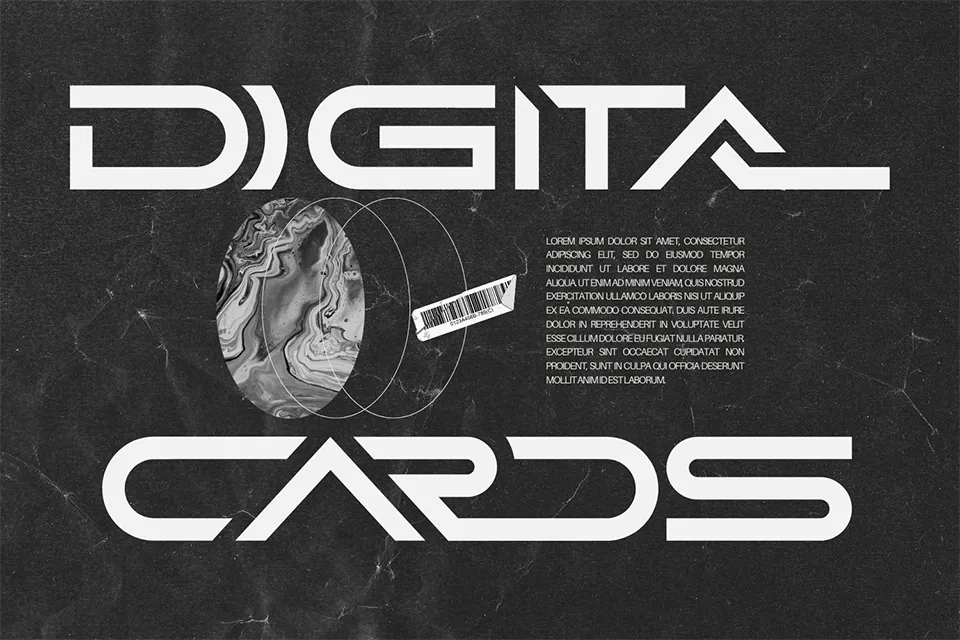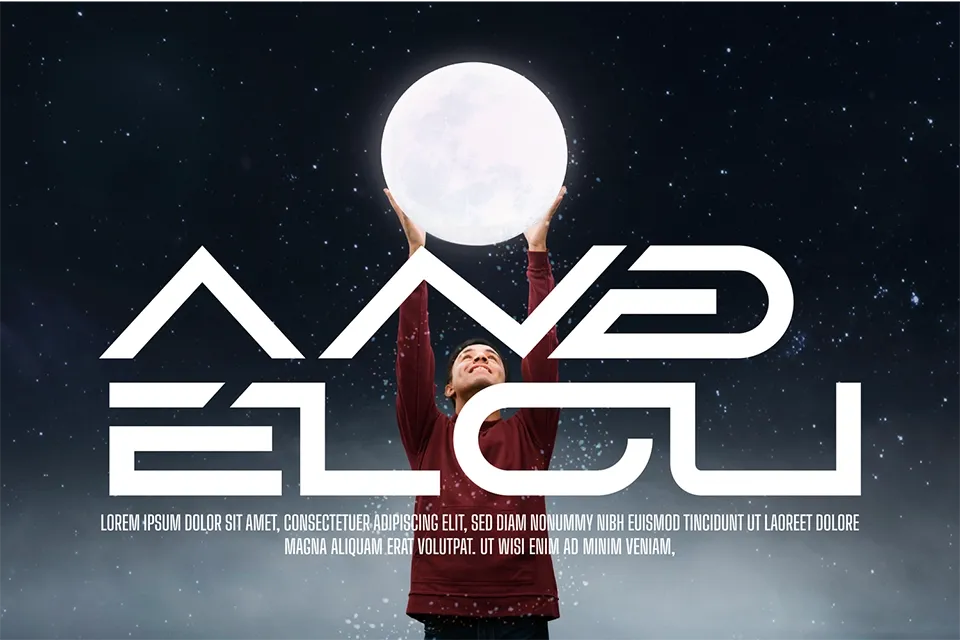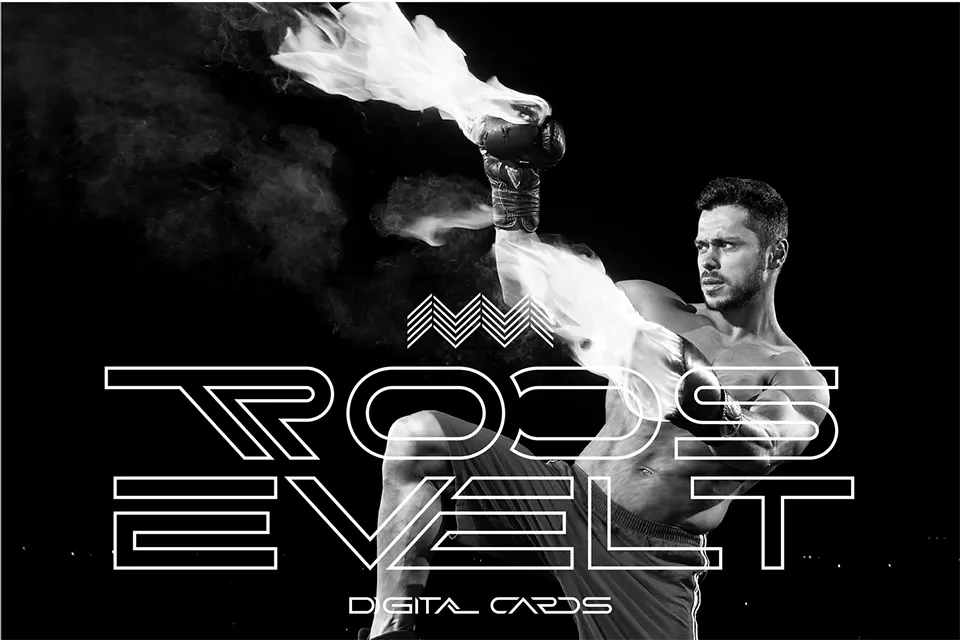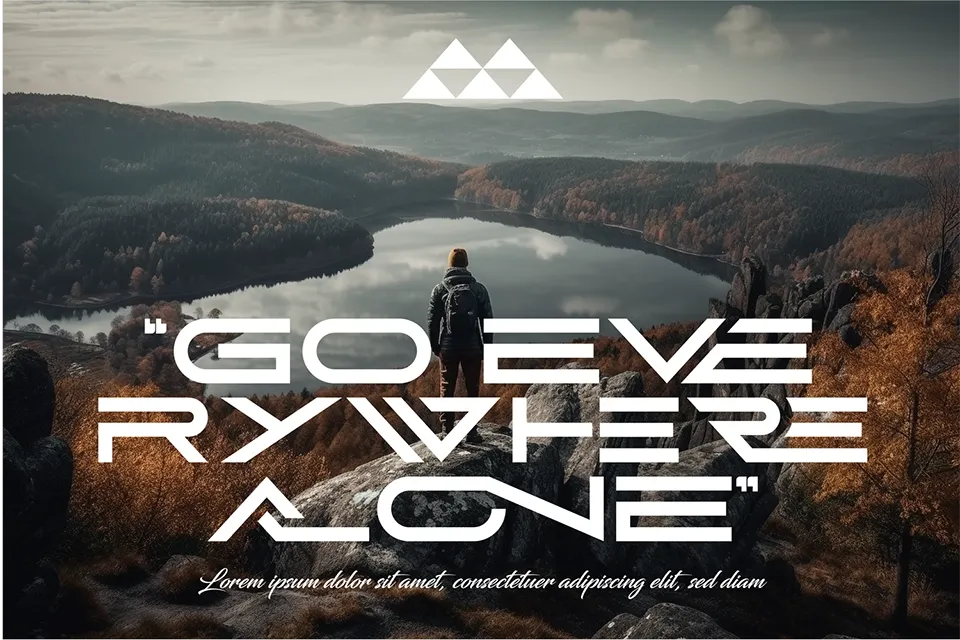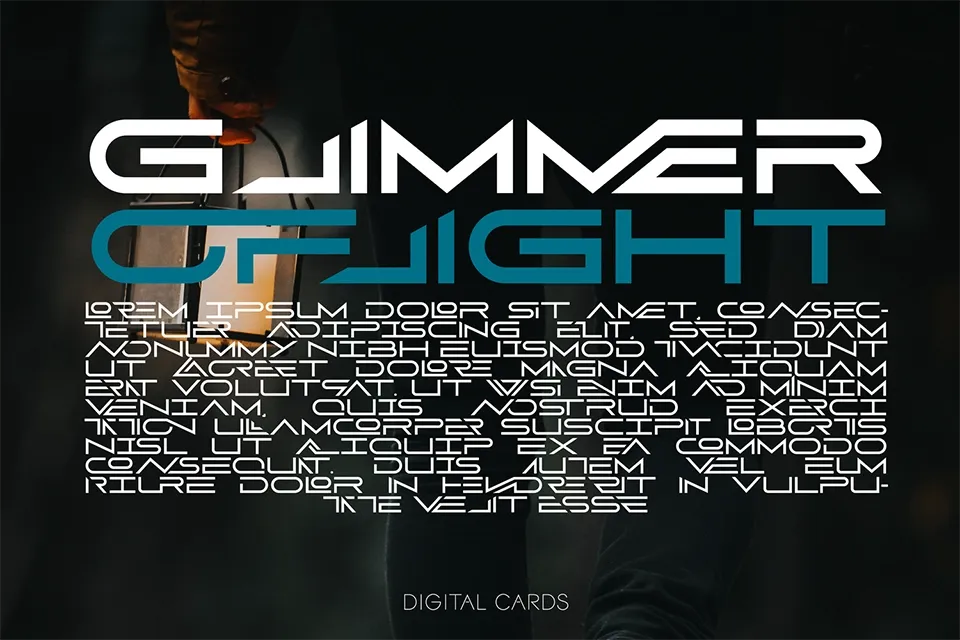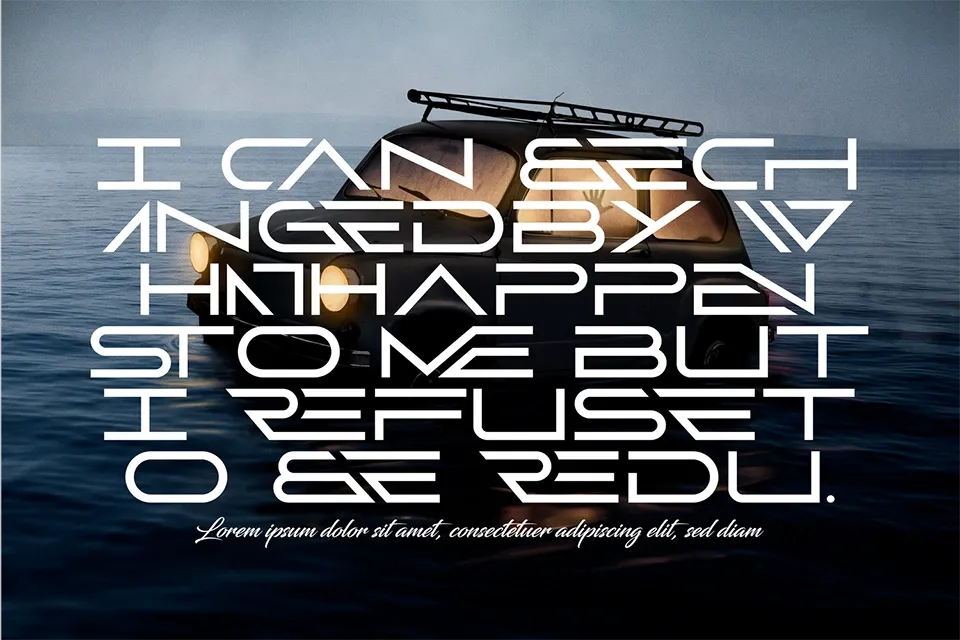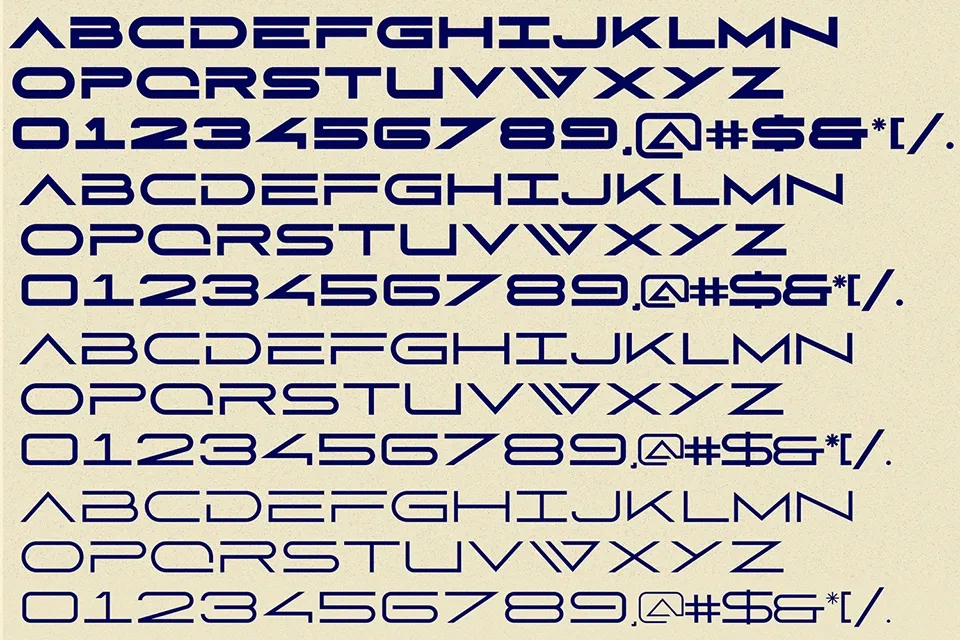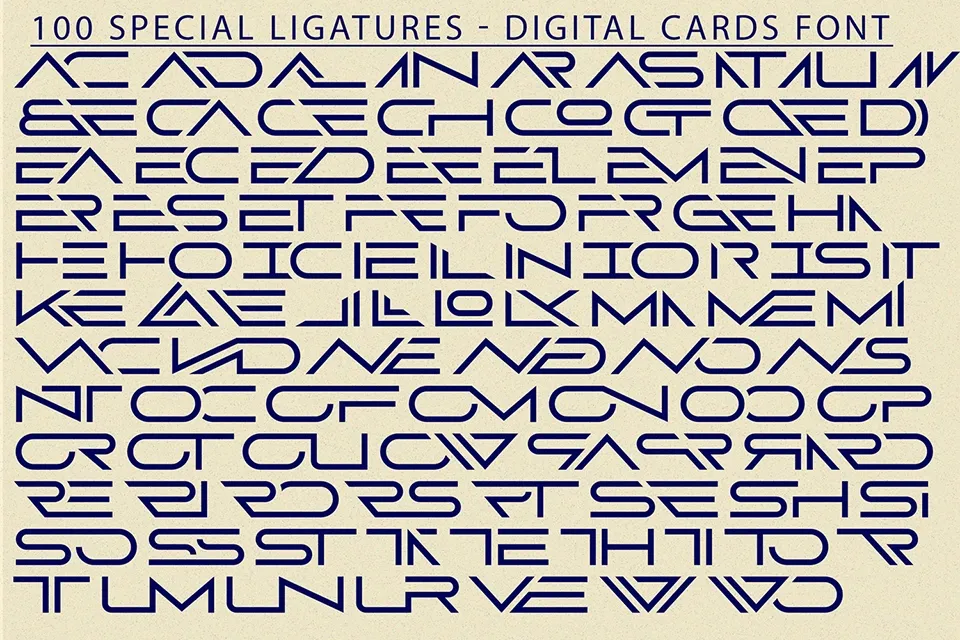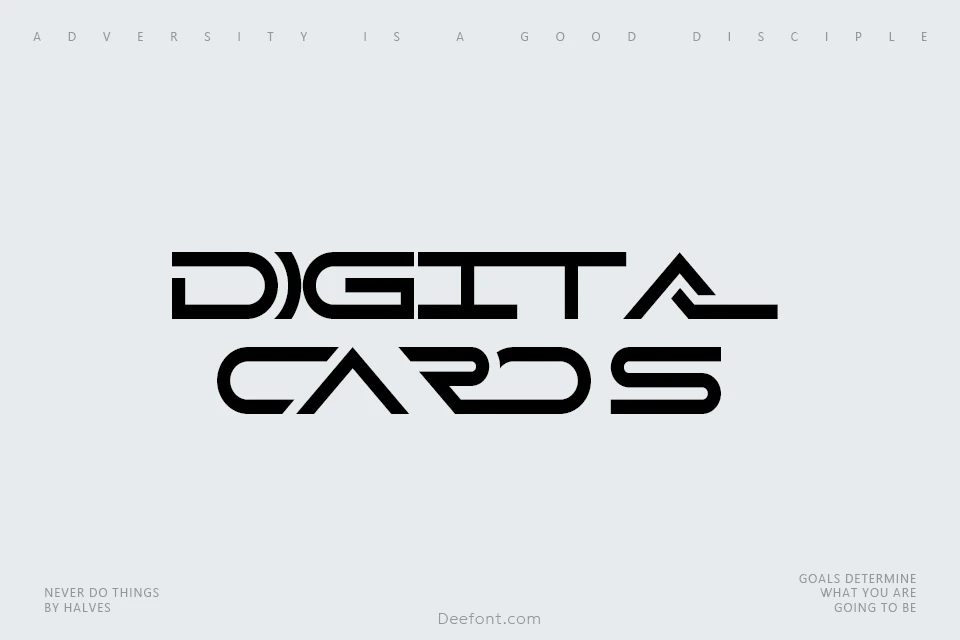
Digital Cards Font
Digital Cards Font is a modern and futuristic typeface that brings sci-fi aesthetics to contemporary design. With its bold geometric forms and clean lines, this font perfectly captures the retro-futurism visual style, making it ideal for projects that demand a technologically advanced look. Digital Cards features an impressive array of OpenType functionality, including 100 ligatures, alternates, numbers, and punctuation marks, while supporting multiple languages. Available in four weights—Bold, Regular, Light, and Thin—this versatile font excels in branding, logos, tech-focused designs, advertising, invitations, and layout design. Whether you’re creating futuristic interfaces, modern brochures, or cutting-edge promotional materials, Digital Cards delivers a striking visual impact that elevates your designs.